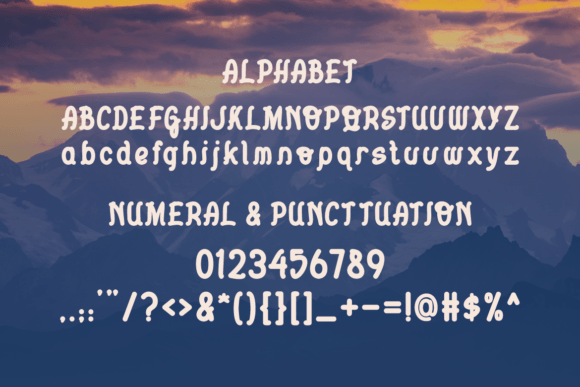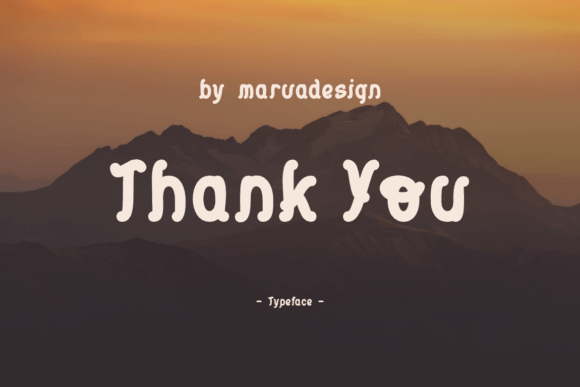
Introducing Abessa Font: The Modern Bold and Authentic Display Font
In the world of typography, fonts play a crucial role in conveying the tone and personality of a brand. For designers and crafters, finding the perfect font that embodies the essence of their project can be a daunting task. However, if you’re looking for a modern, bold, and authentic display font that can elevate your branding project, look no further than Abessa Font.
What is Abessa Font?
Abessa is a contemporary display font designed to make a statement. Its bold and authentic style makes it perfect for a wide range of applications, from logos and t-shirt printing to e-sport and more. The font’s unique character and versatility have made it a popular choice among designers and crafters.
Key Features of Abessa Font
- Modern and Bold Design: Abessa Font boasts a modern and bold design that is sure to grab attention. Its sleek lines and curves make it perfect for creating striking logos, posters, and other visual materials.
- Authentic Style: The font’s authentic style gives it a unique and distinctive look that sets it apart from other fonts. It’s perfect for brands that want to convey a sense of authenticity and credibility.
- Versatility: Abessa Font is versatile and can be used in a wide range of contexts, from digital to print. Whether you’re designing a logo, t-shirt, or social media graphic, this font is sure to deliver.
Use Cases for Abessa Font
Abessa Font is suitable for a variety of branding projects, including:
- Logo Design: Create a bold and memorable logo that represents your brand with Abessa Font.
- T-Shirt Printing: Design eye-catching t-shirts with Abessa Font that’s sure to turn heads.
- E-Sport: Give your e-sport team a professional and modern look with Abessa Font.
- Posters and Flyers: Create striking posters and flyers that grab attention with Abessa Font.
- Social Media Graphics: Elevate your social media graphics with Abessa Font that’s sure to stand out.
Why Choose Abessa Font?
With so many fonts available, why choose Abessa Font? Here are a few reasons:
- Unique Design: Abessa Font has a unique design that sets it apart from other fonts.
- High-Quality: The font is of high quality and is designed to deliver exceptional results.